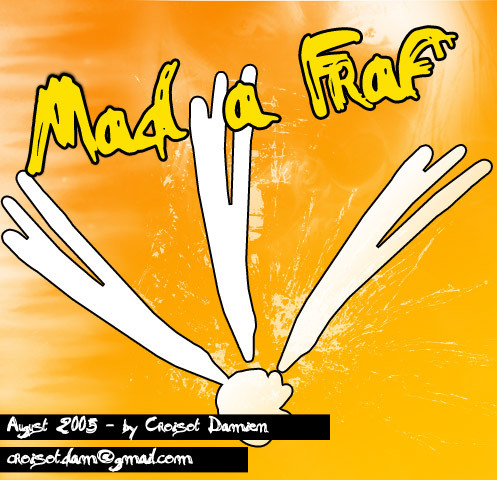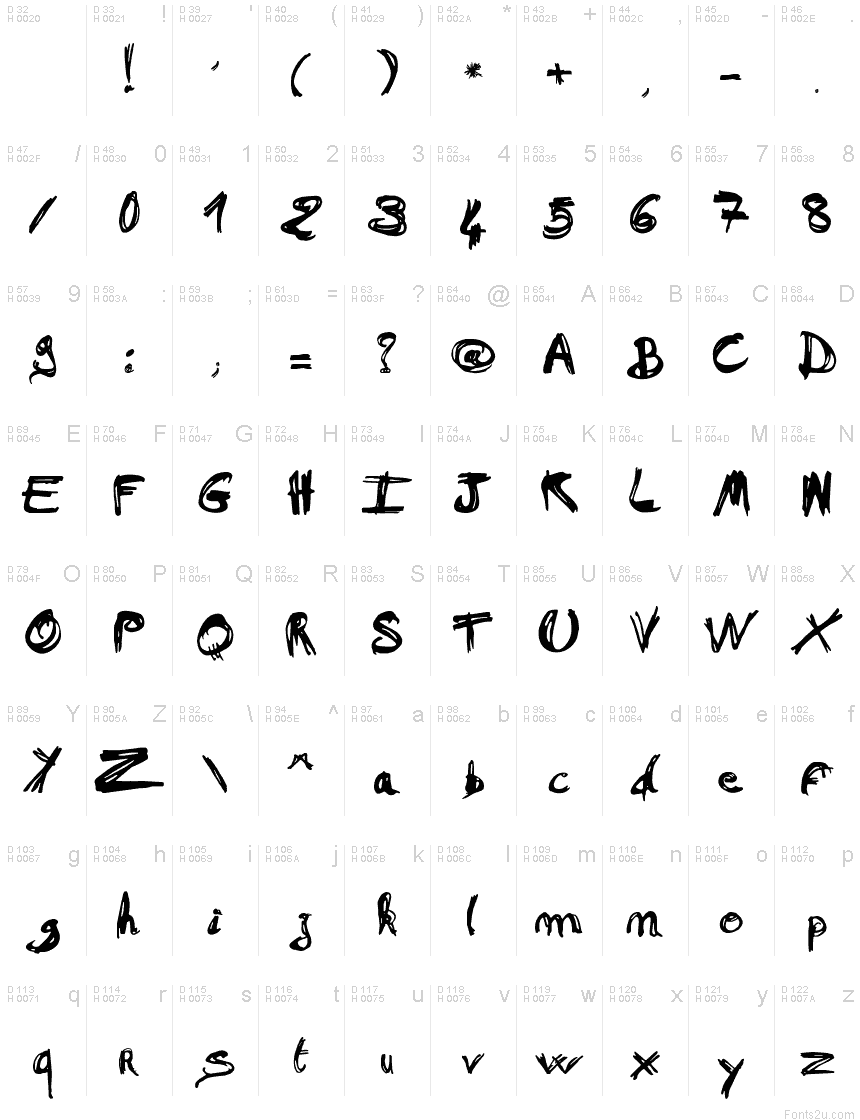
Mad a Fraf
Mad a Fraf font designed in 2005 by Damien Croisot is a free trash display font with a raw hand-drawn silhouette and uneven, ink-scraped strokes. The lettering keeps a scuffed, improvised texture from one word to the next, so the face feels written fast and left rough at the edges.
Mad a Fraf fits music posters, album covers, zines, streetwear graphics, and sticker art that need a rough, handwritten edge. It also suits logo accents, event flyers, and short title treatments where the torn, graffiti-like energy matters more than polish.